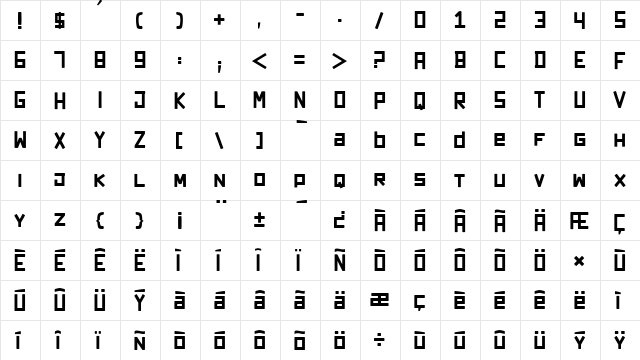
dark forest Regular
Design Context for dark forest Typeface
dark forest is a composed and adaptable typeface that performs quietly and consistently across a wide range of design contexts.